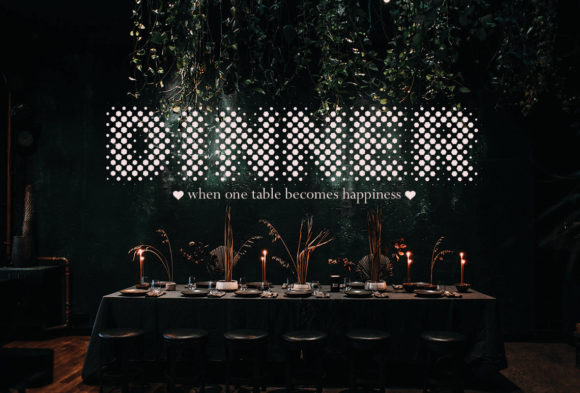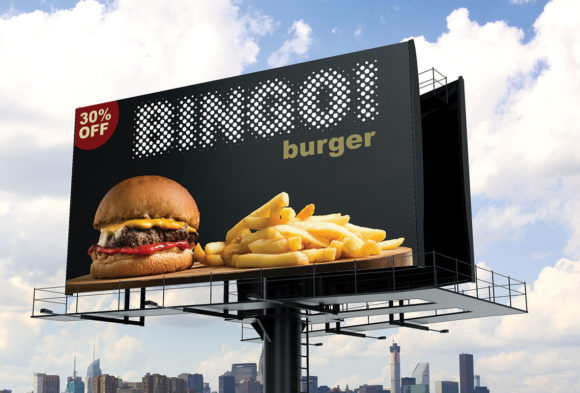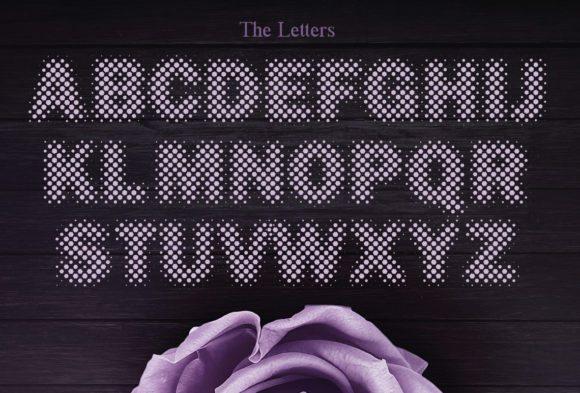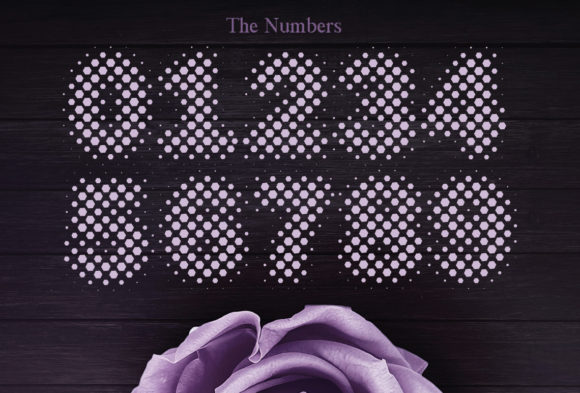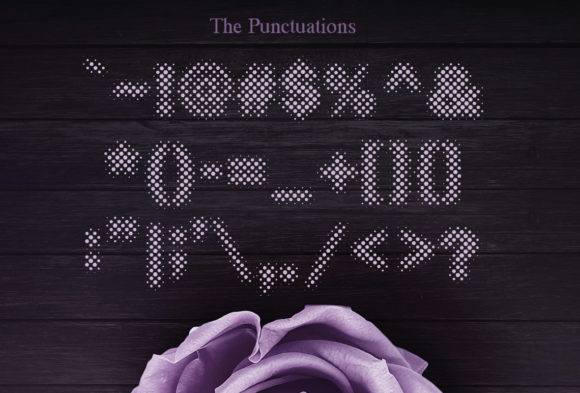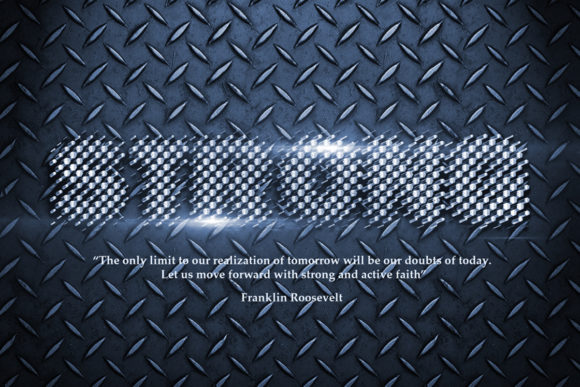
Introduction to Noknin Font
Noknin is a bold, cool and assertive display font.
This font will be an incredible asset to your fonts library, as it has the potential to elevate any creation .
Key Features of Noknin Font
Why Choose Noknin Font?
Noknin Font offers exceptional quality and versatility, making it a valuable addition to your design toolkit. Whether you’re creating for personal projects or commercial use, Noknin Font delivers professional results.